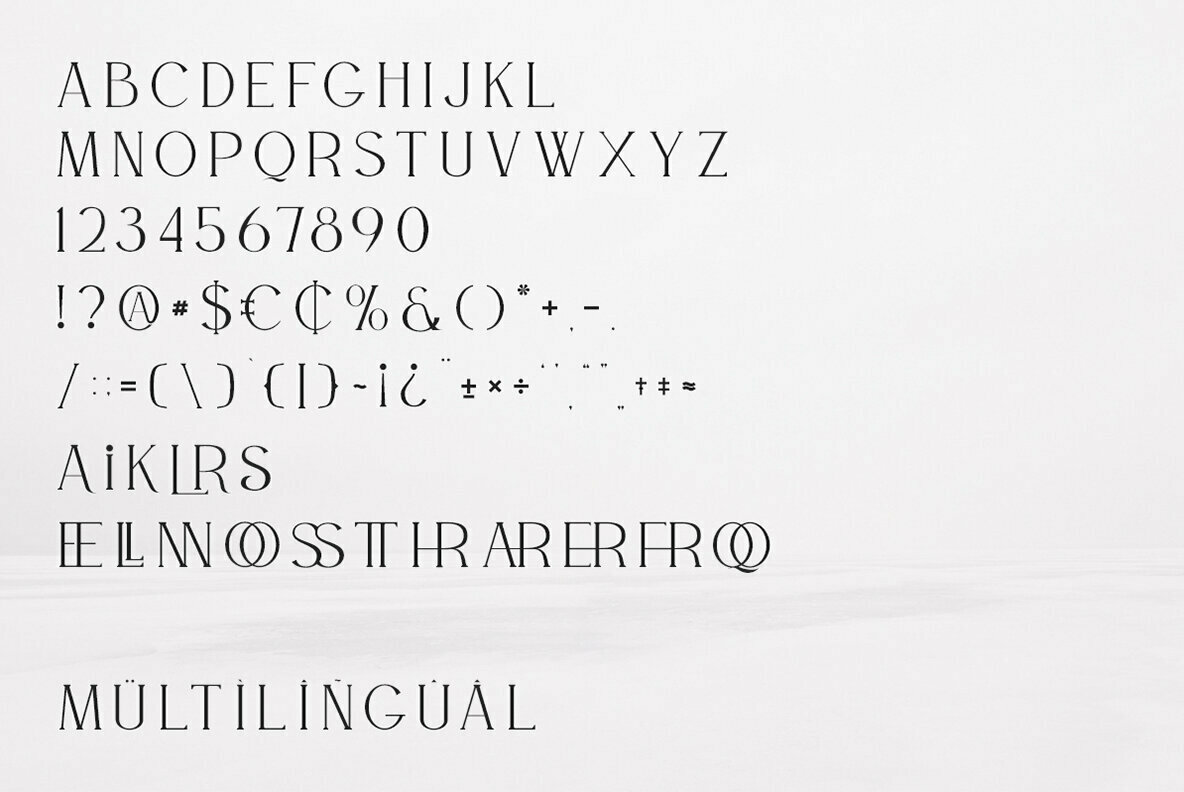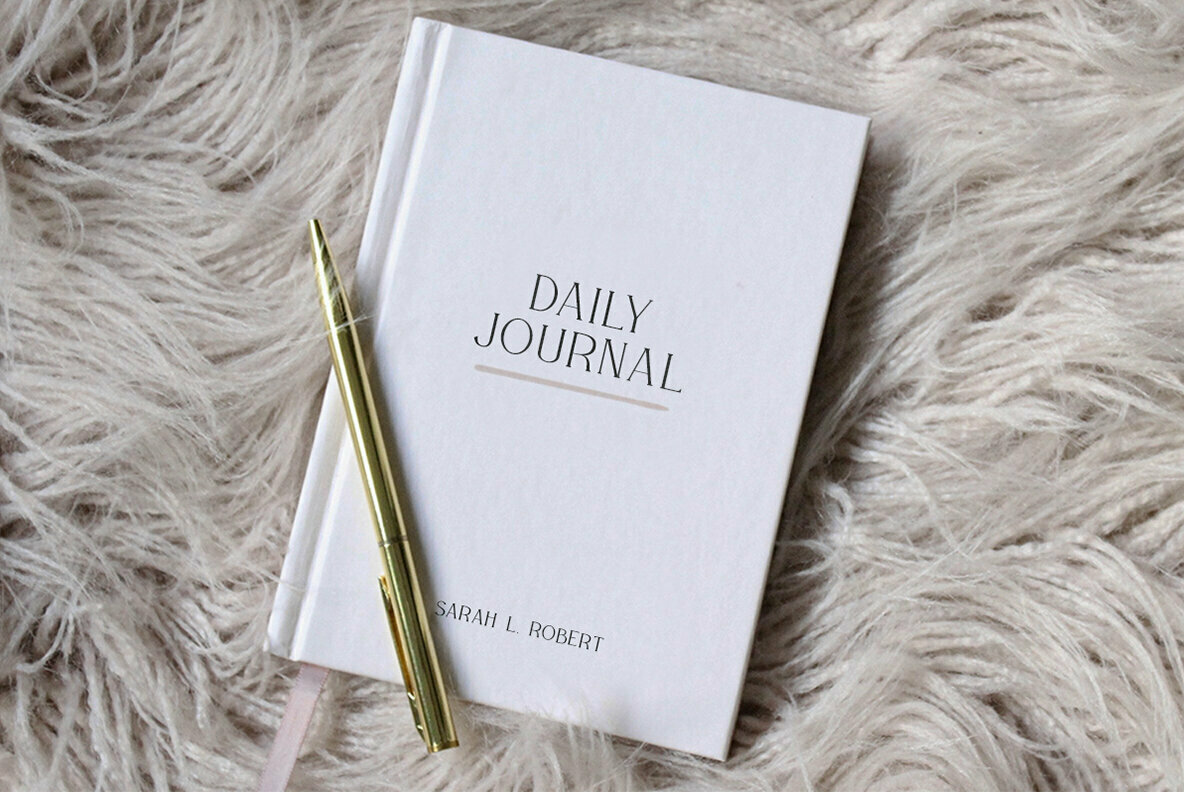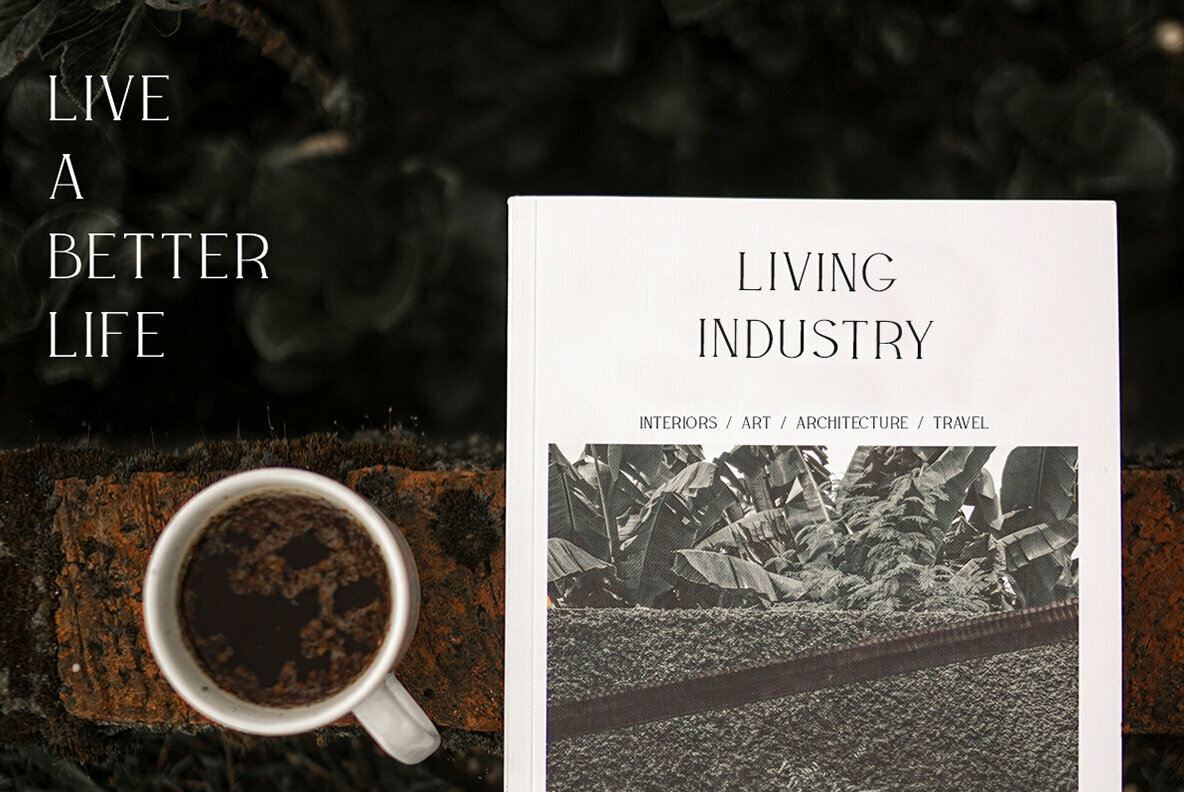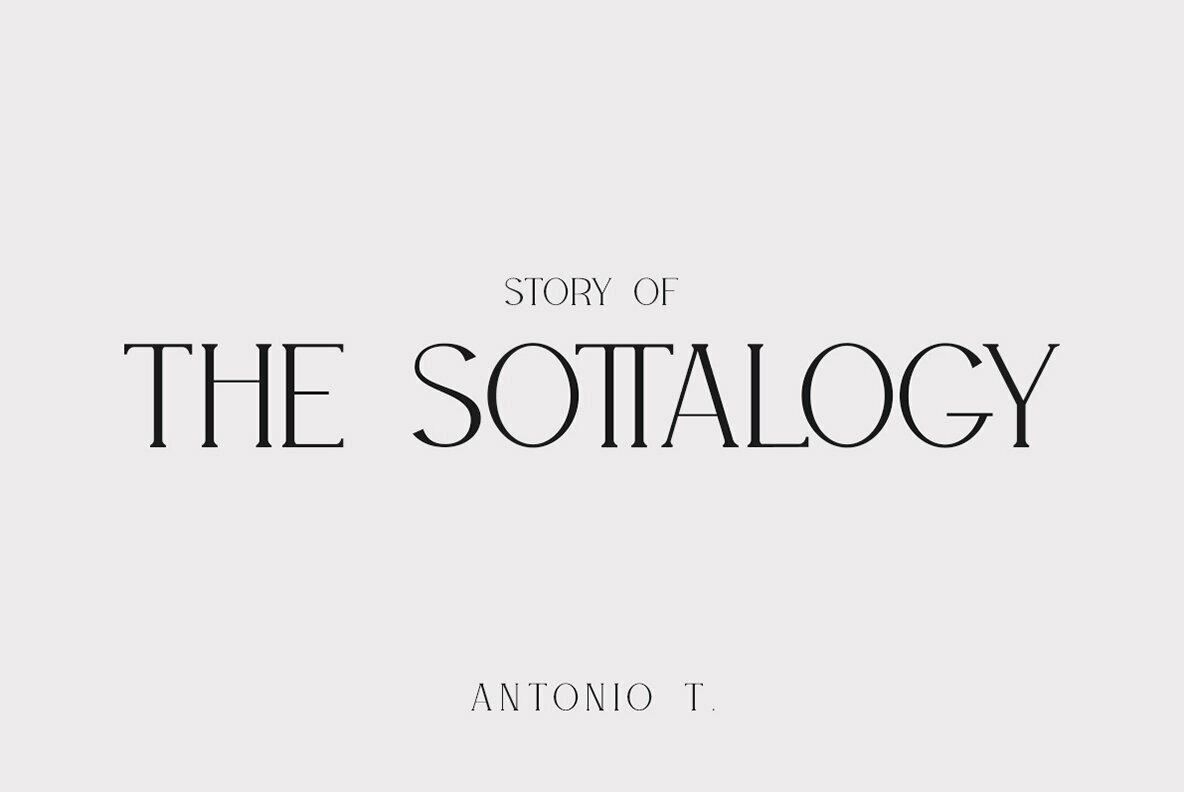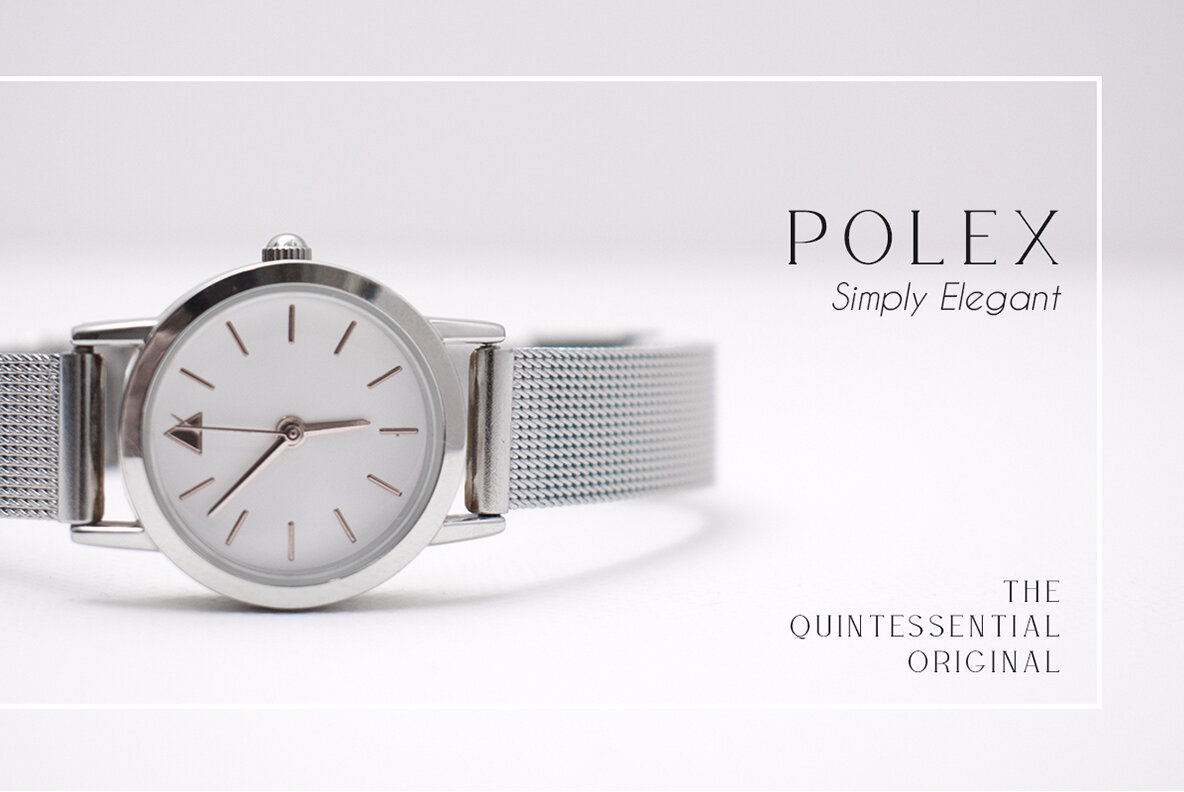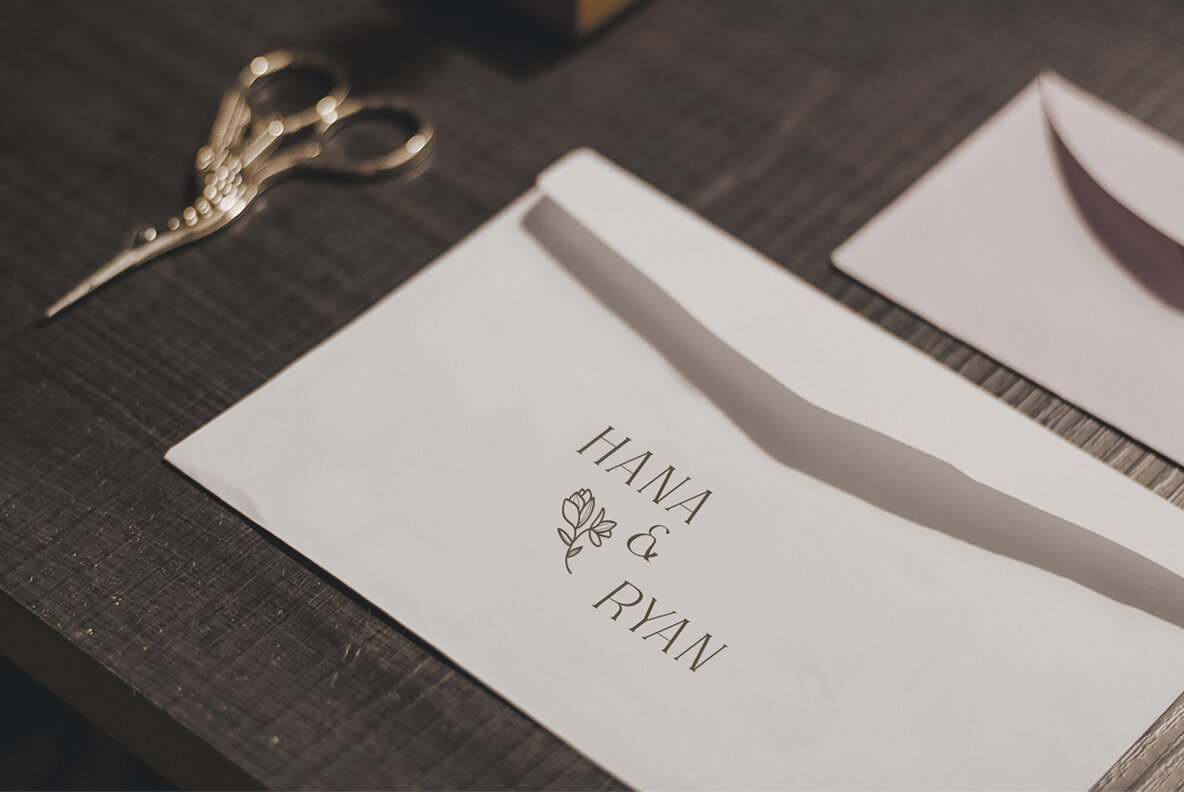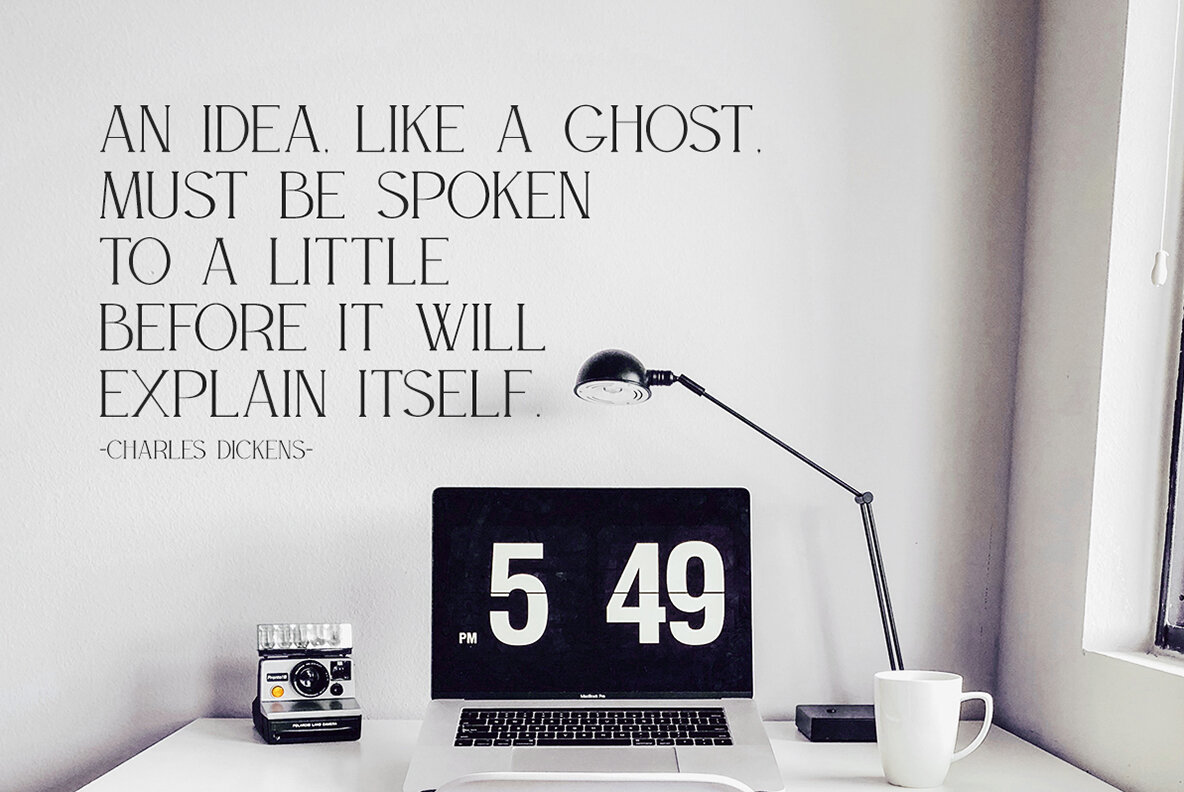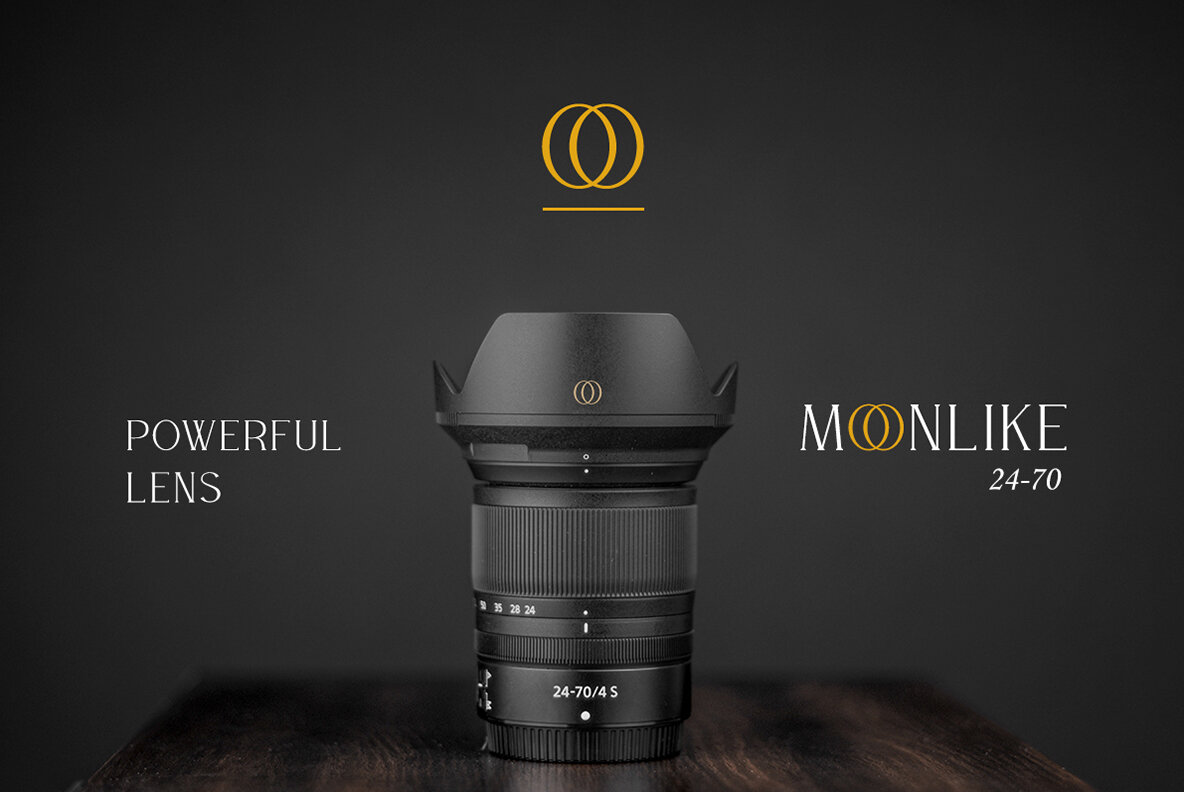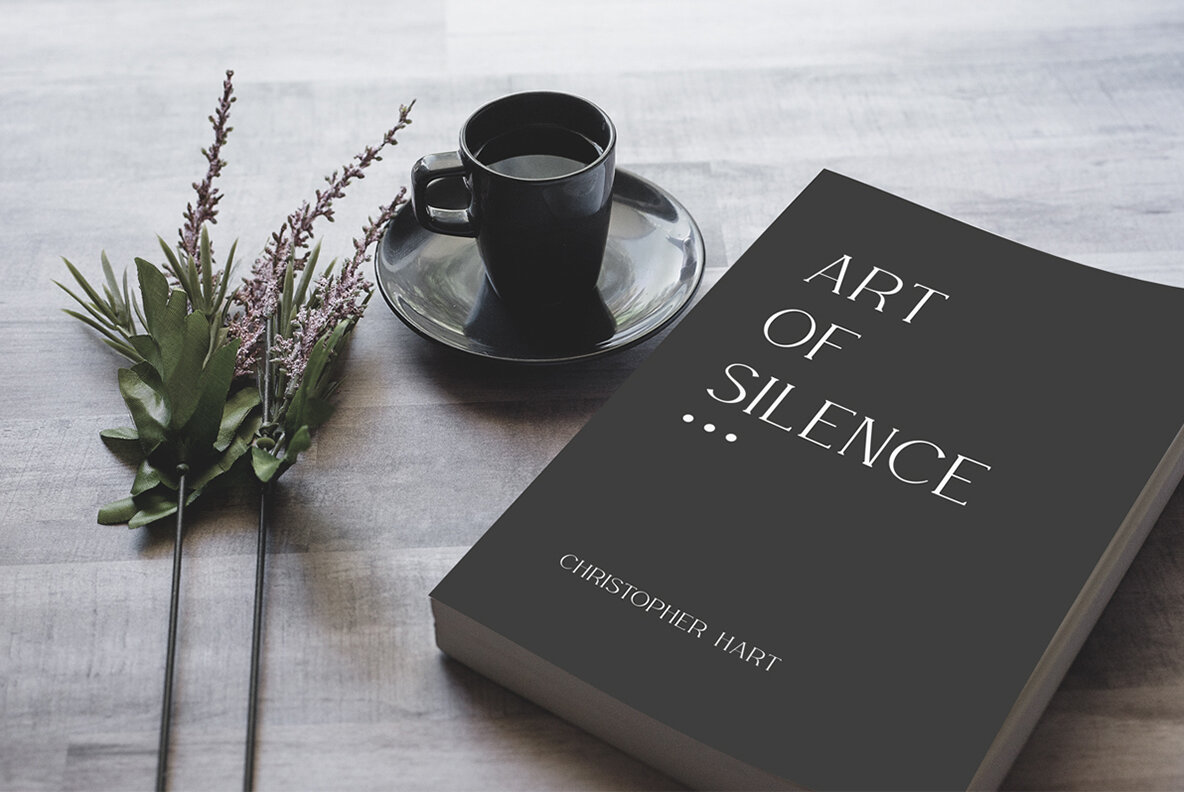
Willson Font
Willson
Willson, crafted with a modern and clean aesthetic, is a versatile serif font ideal for a wide array of design projects. Whether you're working on branding, logo creation, or print media, Willson provides a refined touch that enhances visual appeal.Willson: Clean Serif Font for Modern Design